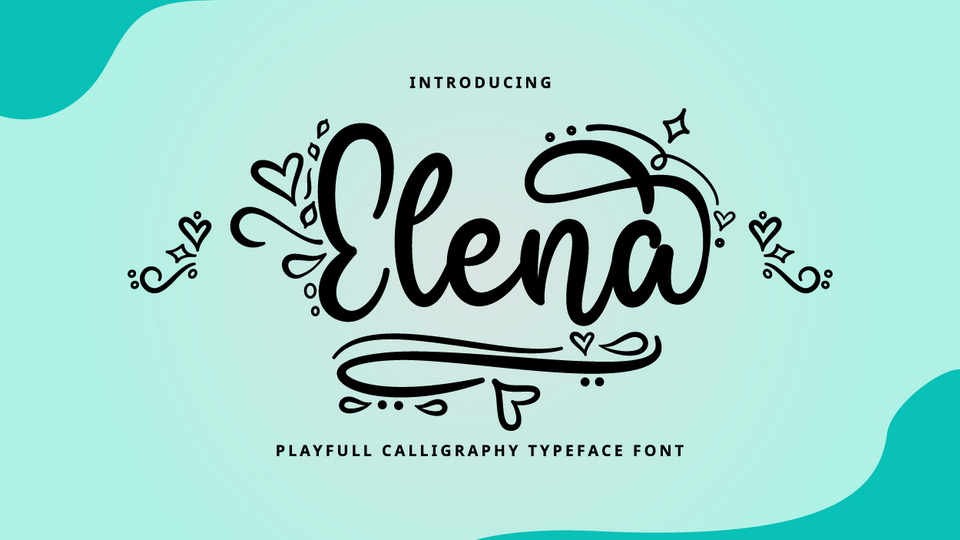
Download Elena font, a delicate and flowing script typeface. Use it to create gorgeous wedding invitations, beautiful stationary art, eye-catching social media posts, and much more!